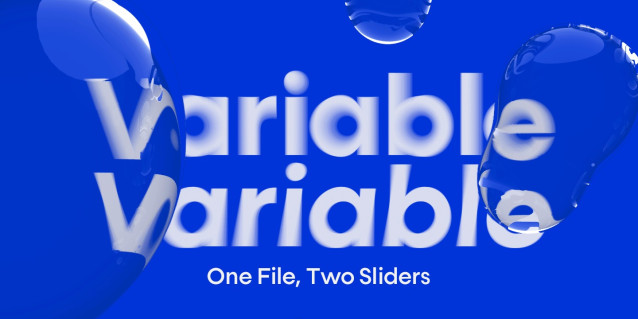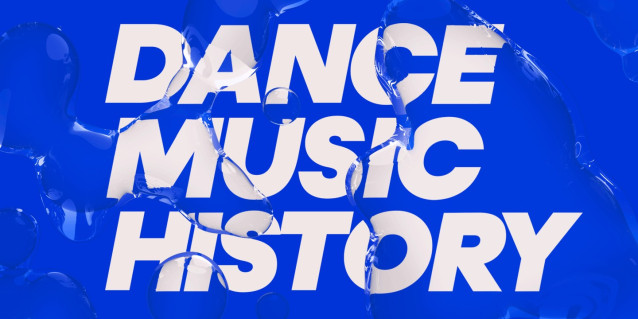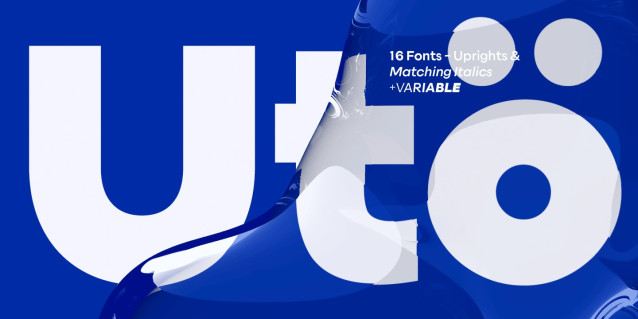
Uto Font Family
Uto Font Family is a variable font, highly adaptable to different requirements. For wider use, we offer a compact collection of monochrome prints in various weights, equipped with a variety of Open Type numerals.
The Uto font family is named after the island of Utö, the southernmost part of Finland – an ascetic place that’s defined by bare simplicity. The same is true for the font, that’s constructed of the simplest of forms. At the outer archipelago, life is shaped by the ever-changing nature and its seasons.